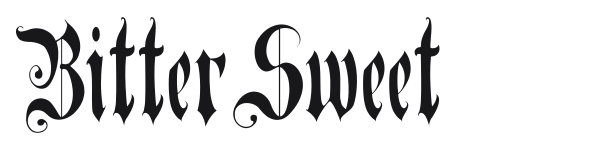
Black Knight FLF
by Casady & Greene
Black Knight FLF is a bold blackletter from Casady & Greene with dense, ornate letterforms rooted in the Textura tradition of medieval manuscript lettering. The heavy vertical strokes and tight spacing give it a dark, authoritative presence that feels genuinely historical rather than stylized. Best reserved for headlines, titles, and decorative use where you want the full weight of gothic formality.